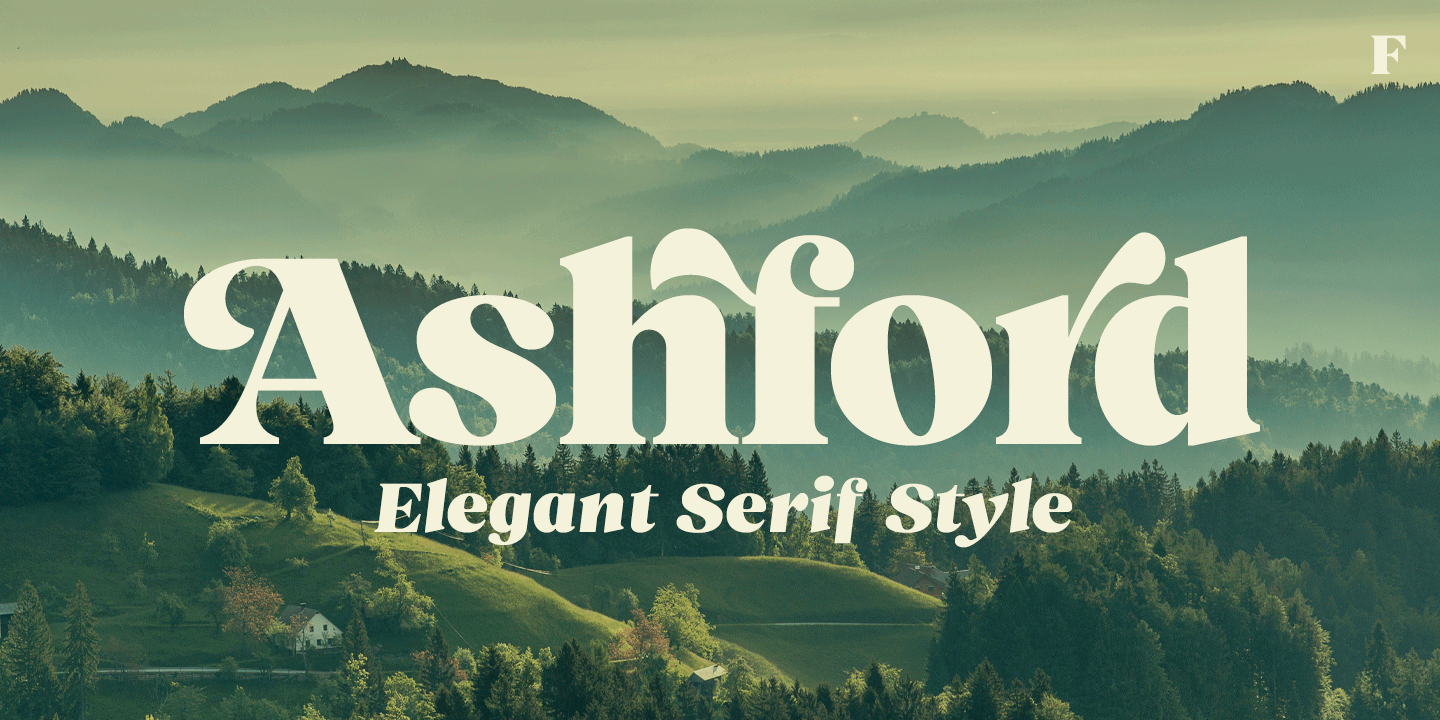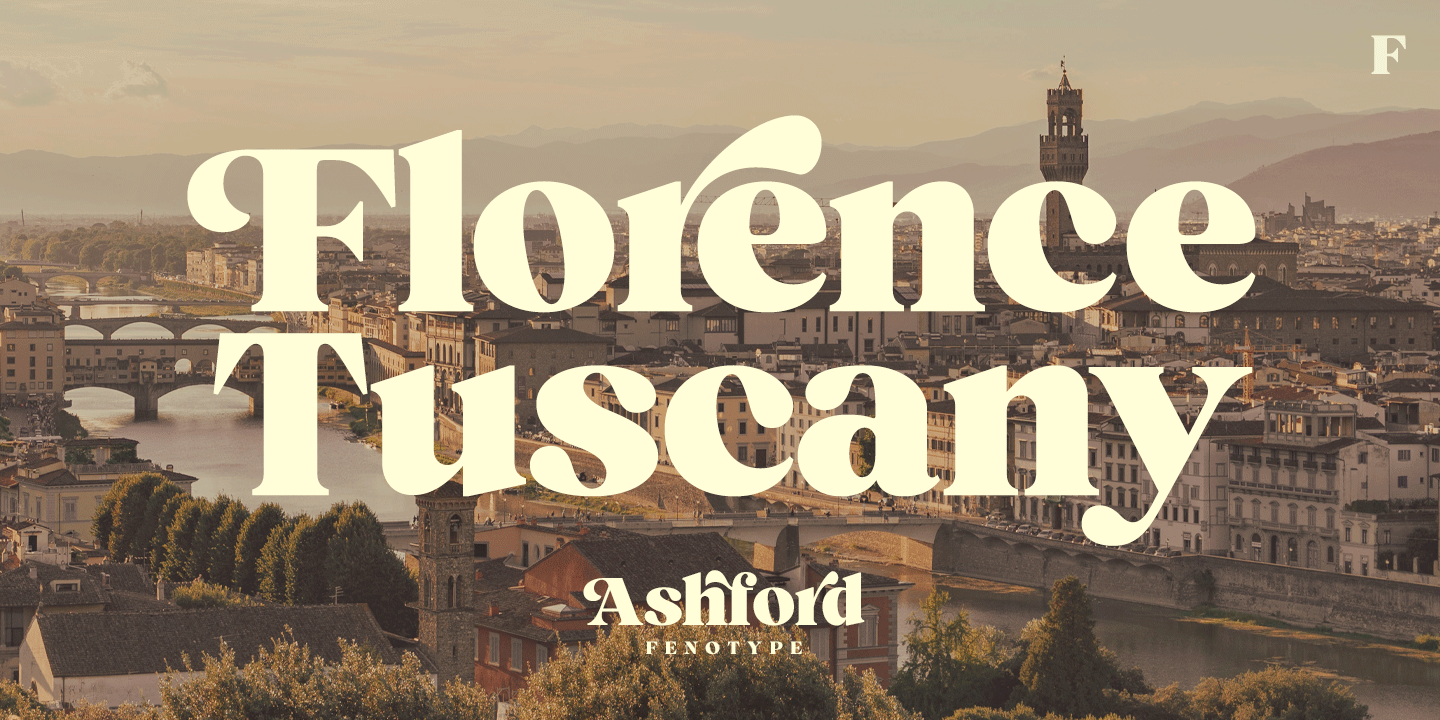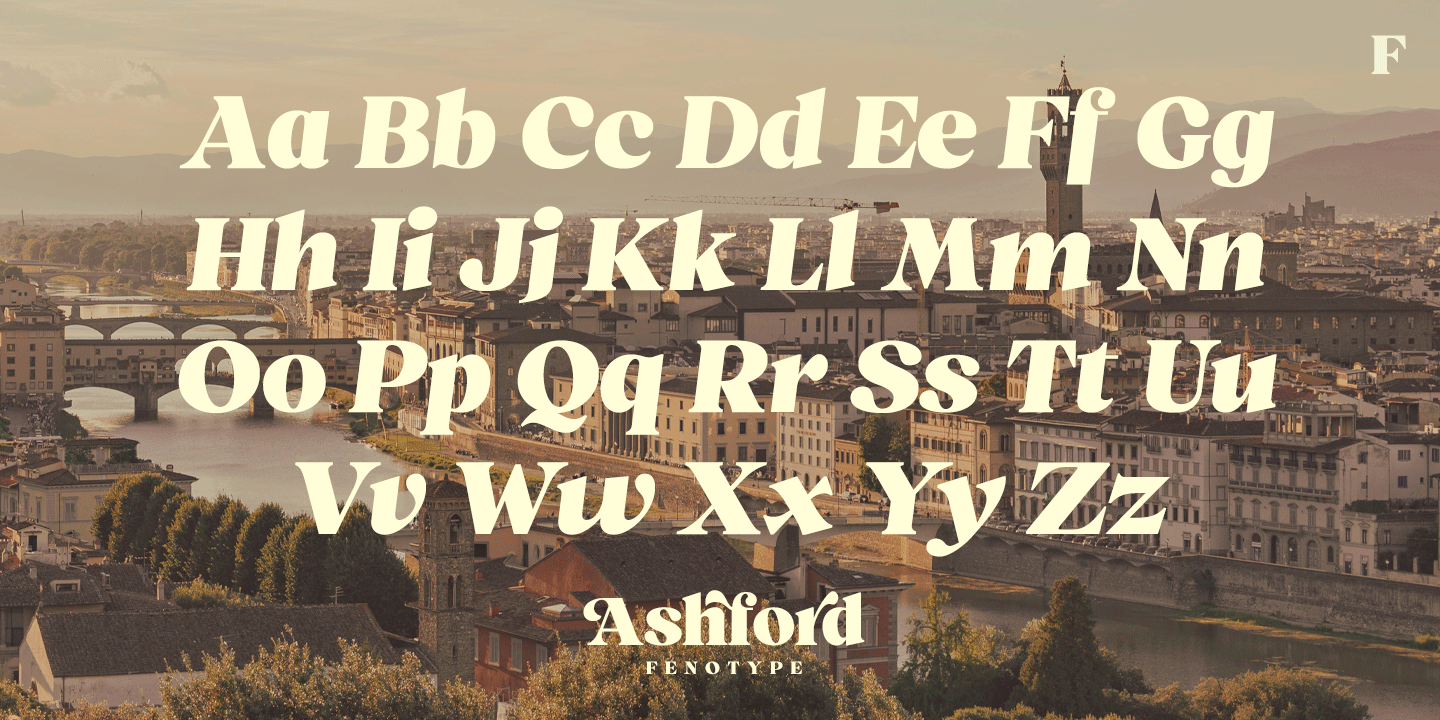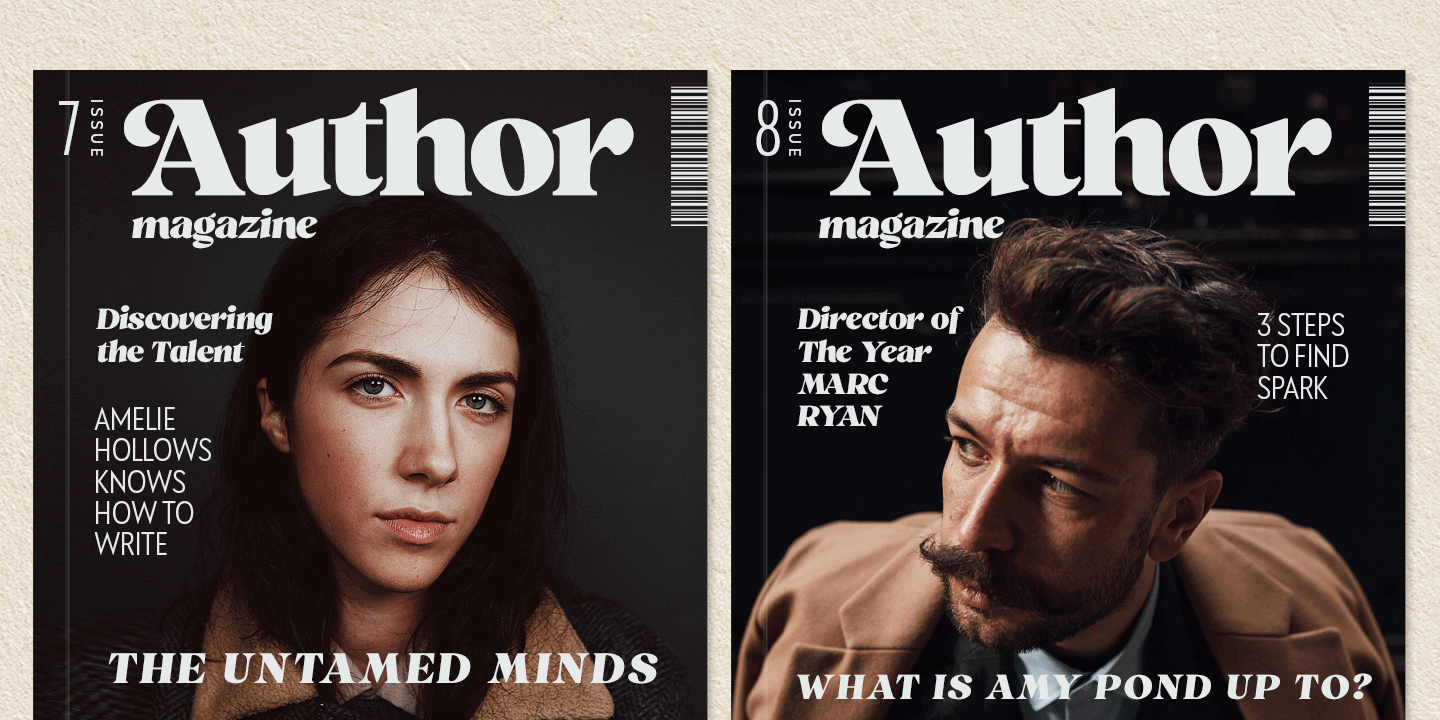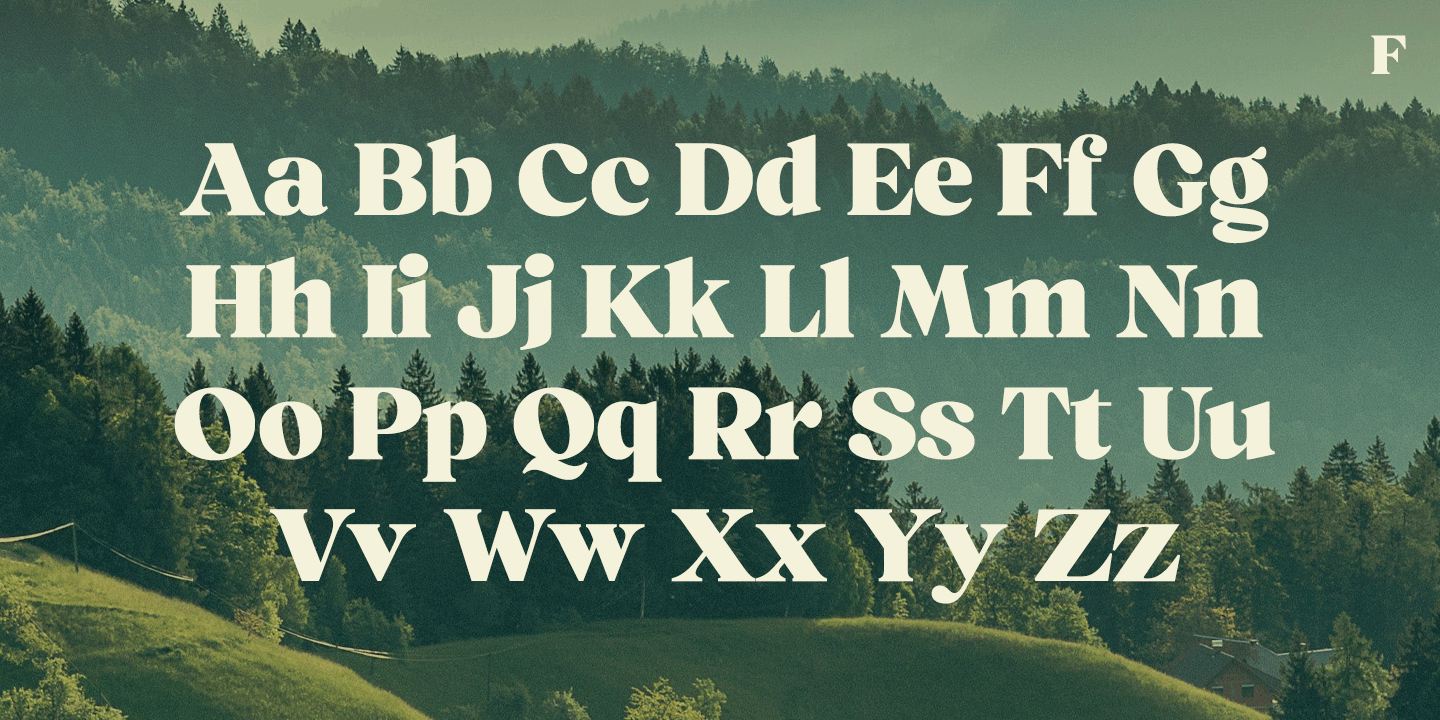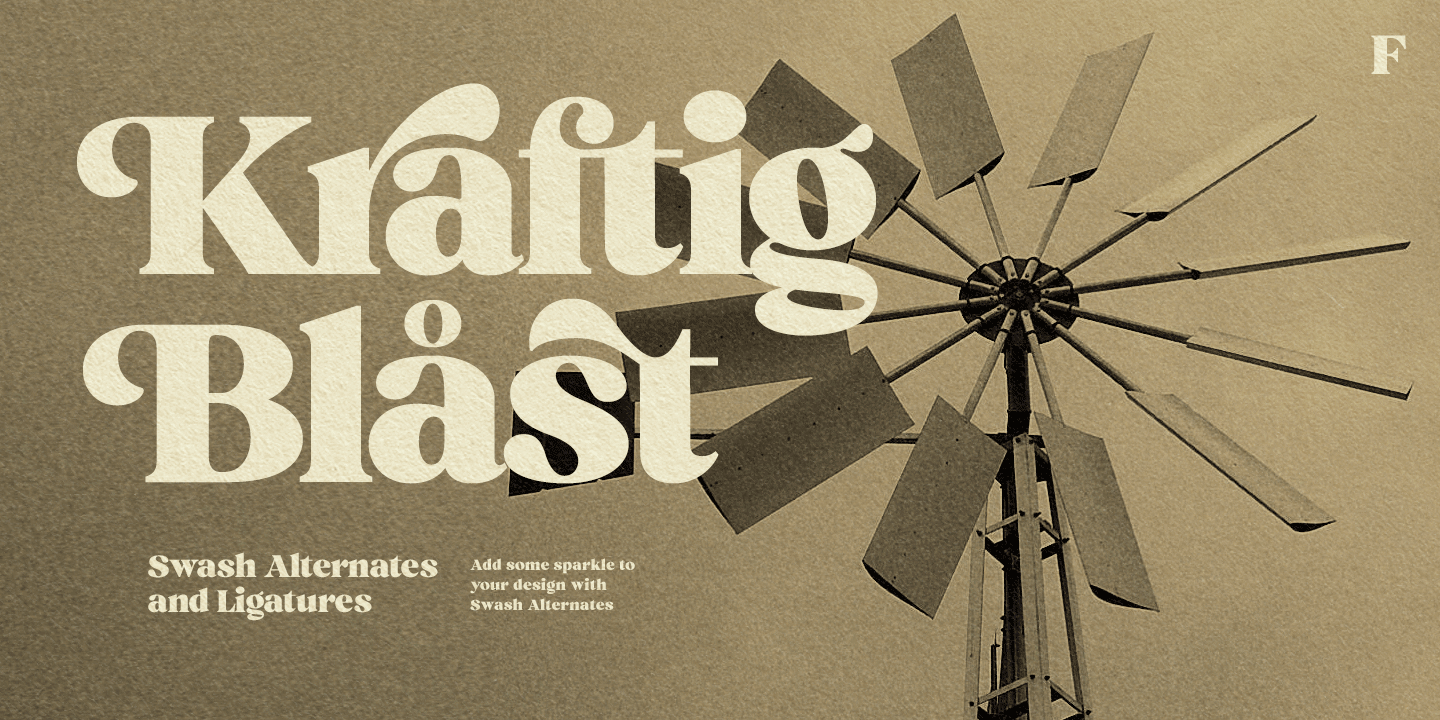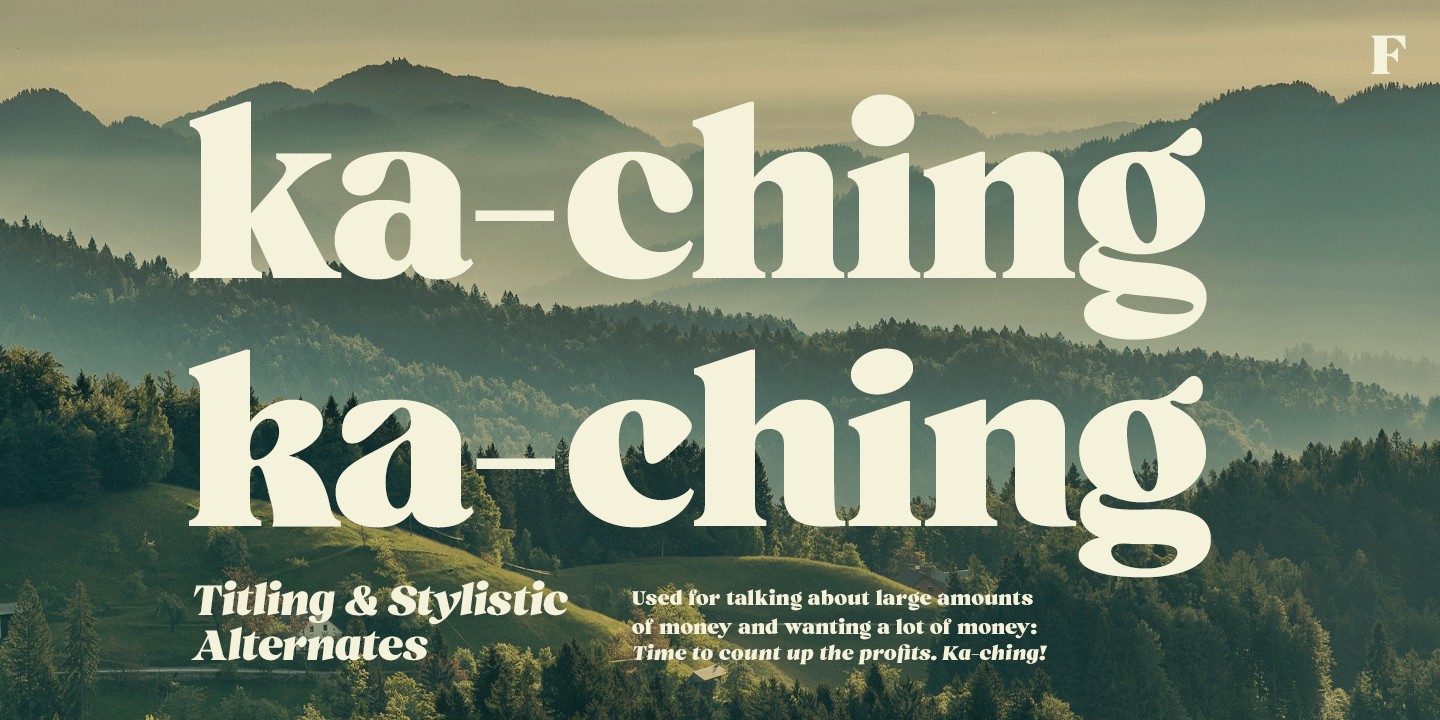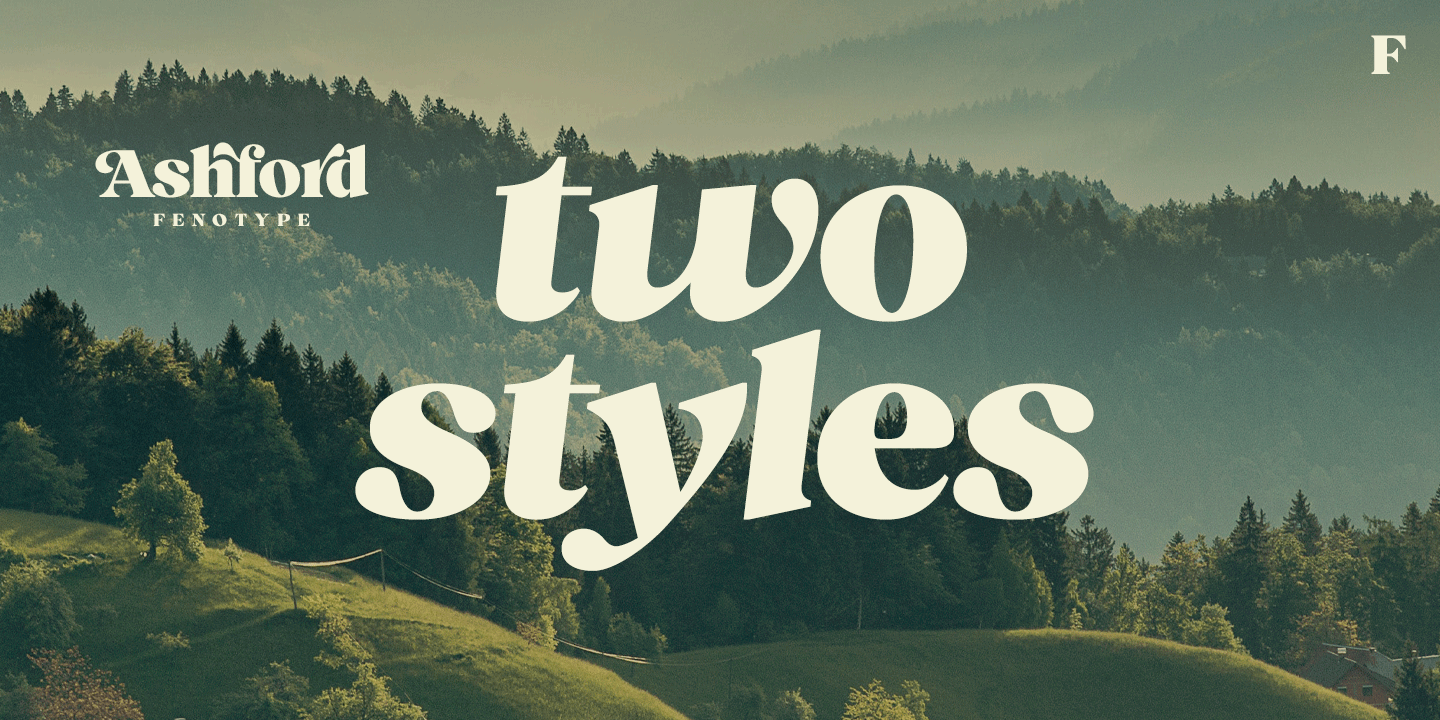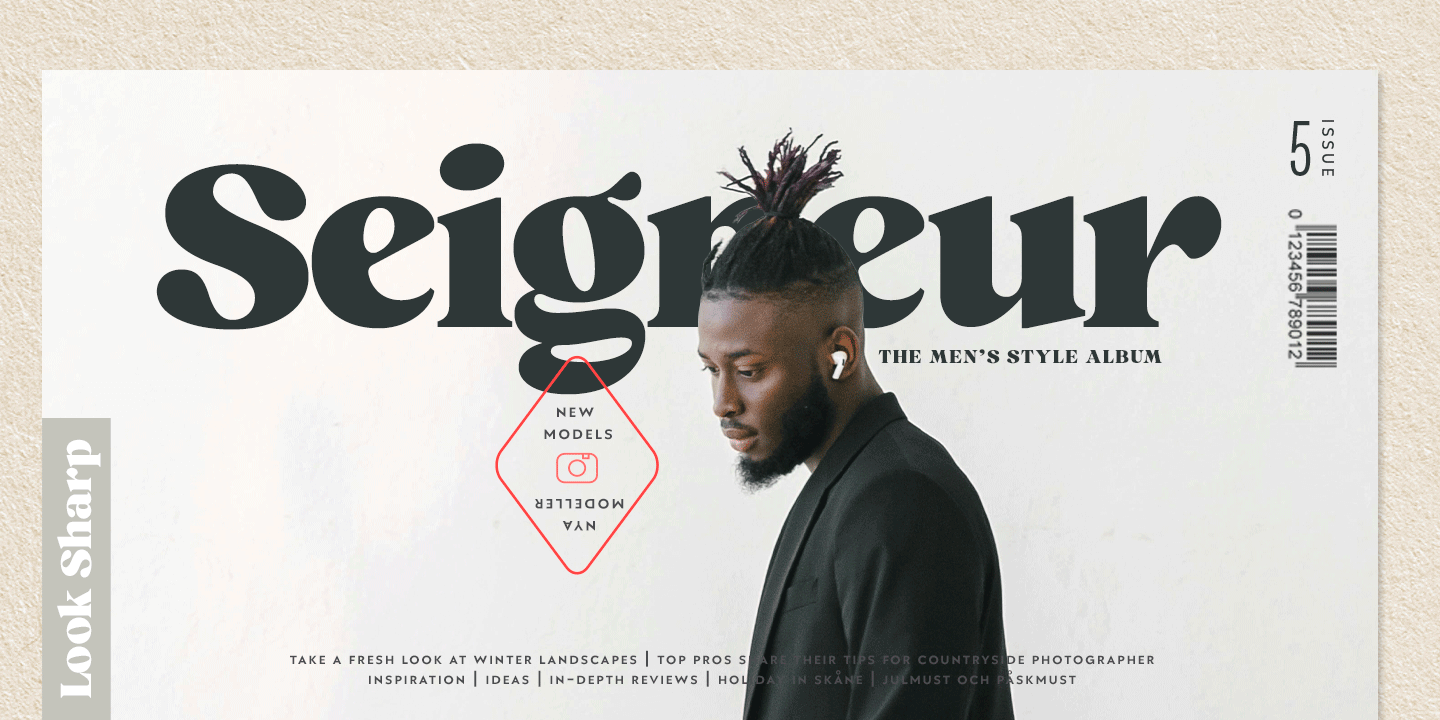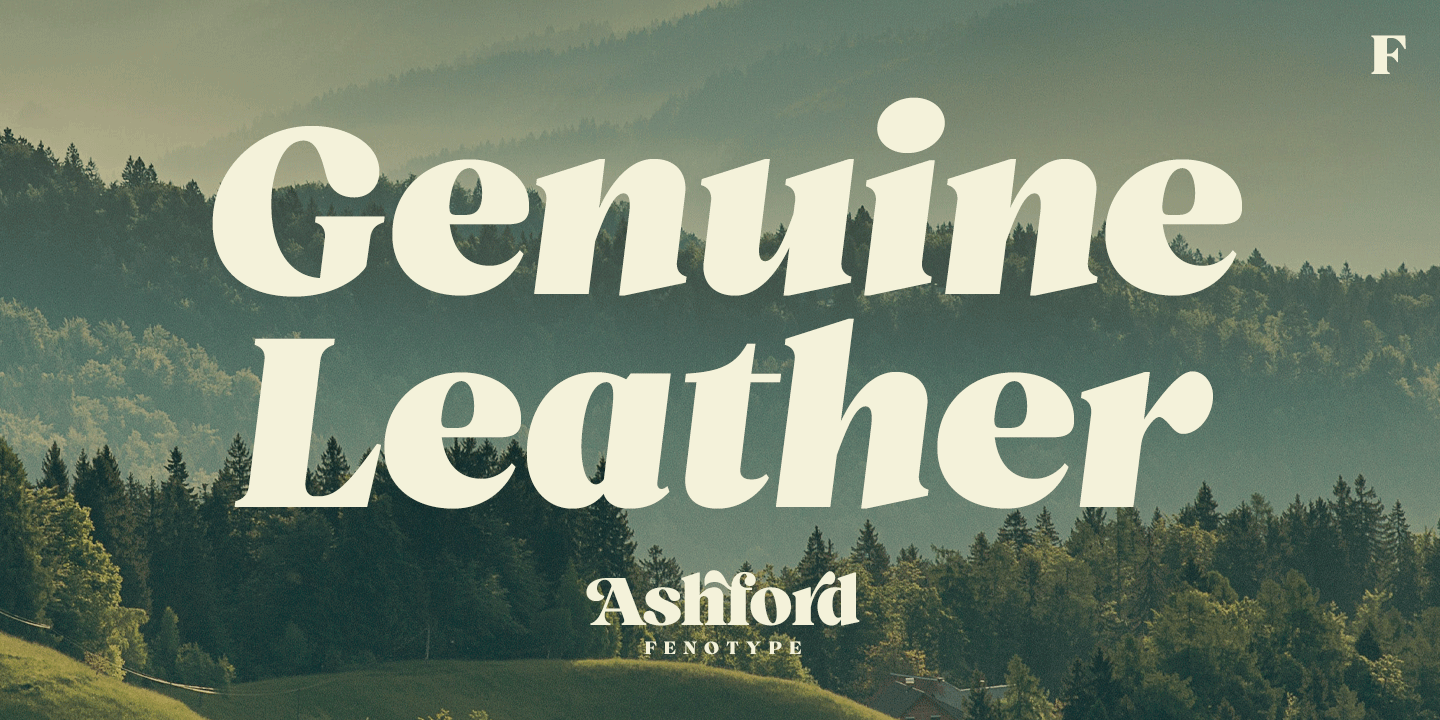
Ashford
Ashford is a bold serif type and its matching Italic. Ashford packs plenty of timeless charm and elegance. As a display style it works best in headlines, posters and as a logotype. Ashford conveys a message of style and inner knowledge.
Ashford is equipped with several OpenType features: Keep Standard Ligatures and Contextual Alternates on to prevent certain characters from colliding and spice up with Swash, Stylistic or Titling Alternates. Both styles come with more than 50 alternate characters.